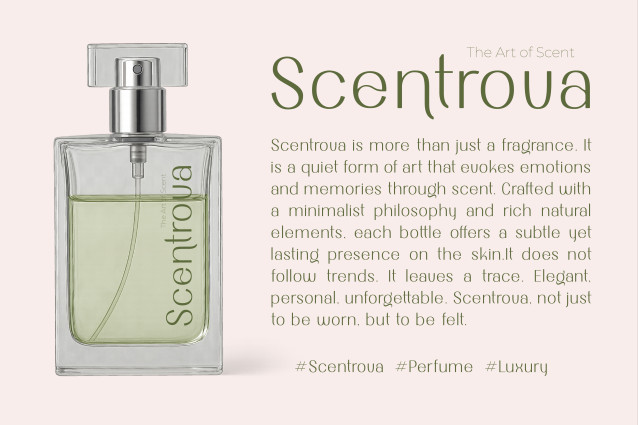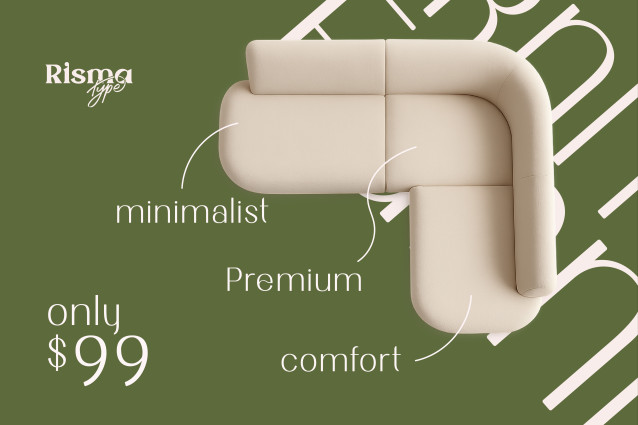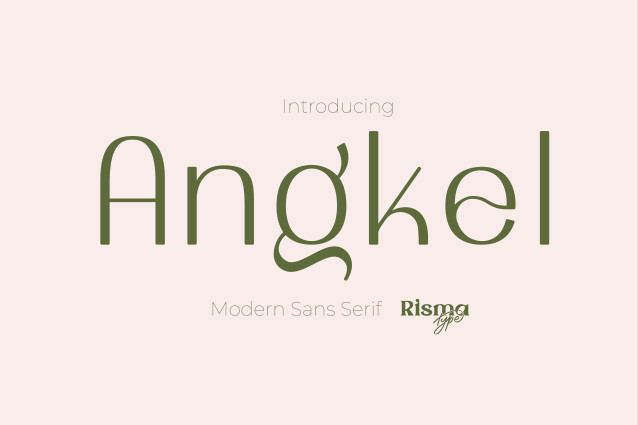
Angkel Font
Angkel Font a bold statement with our latest sans-serif font. With its clean lines and modern appeal, this font is sure to turn heads and leave a lasting impression. Perfect for headlines, logos, and any design that demands attention. It is both functional and stylish, making it a versatile choice for a wide range of design projects.